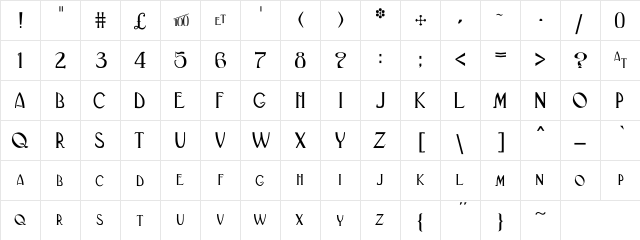
BlackAdderII-Normal Regular
Design Context for BlackAdderII-Normal Typeface
BlackAdderII-Normal is a composed and adaptable typeface that performs quietly and consistently across a wide range of design contexts.